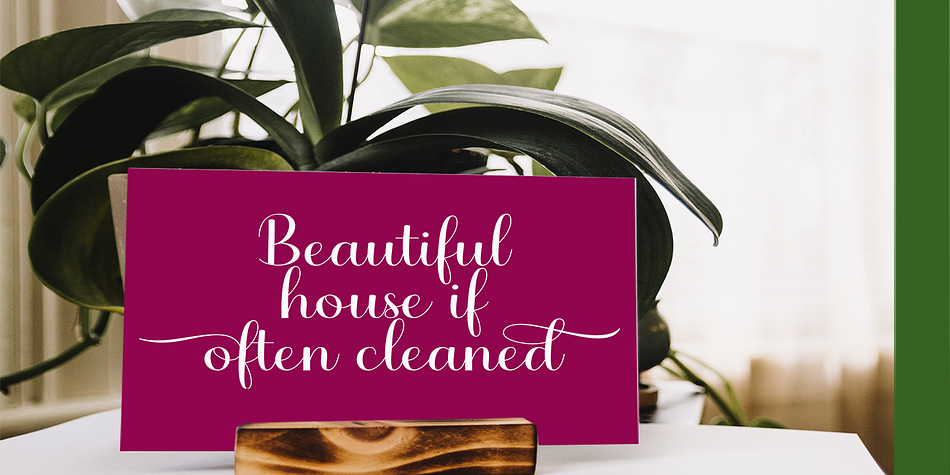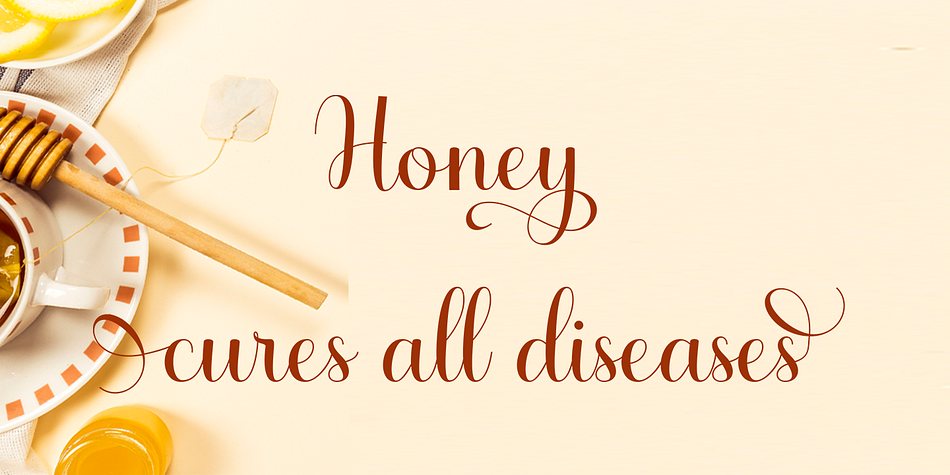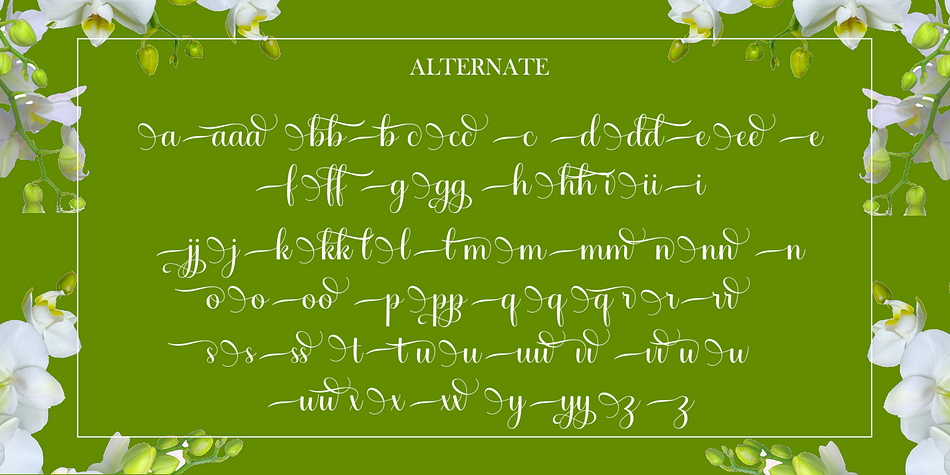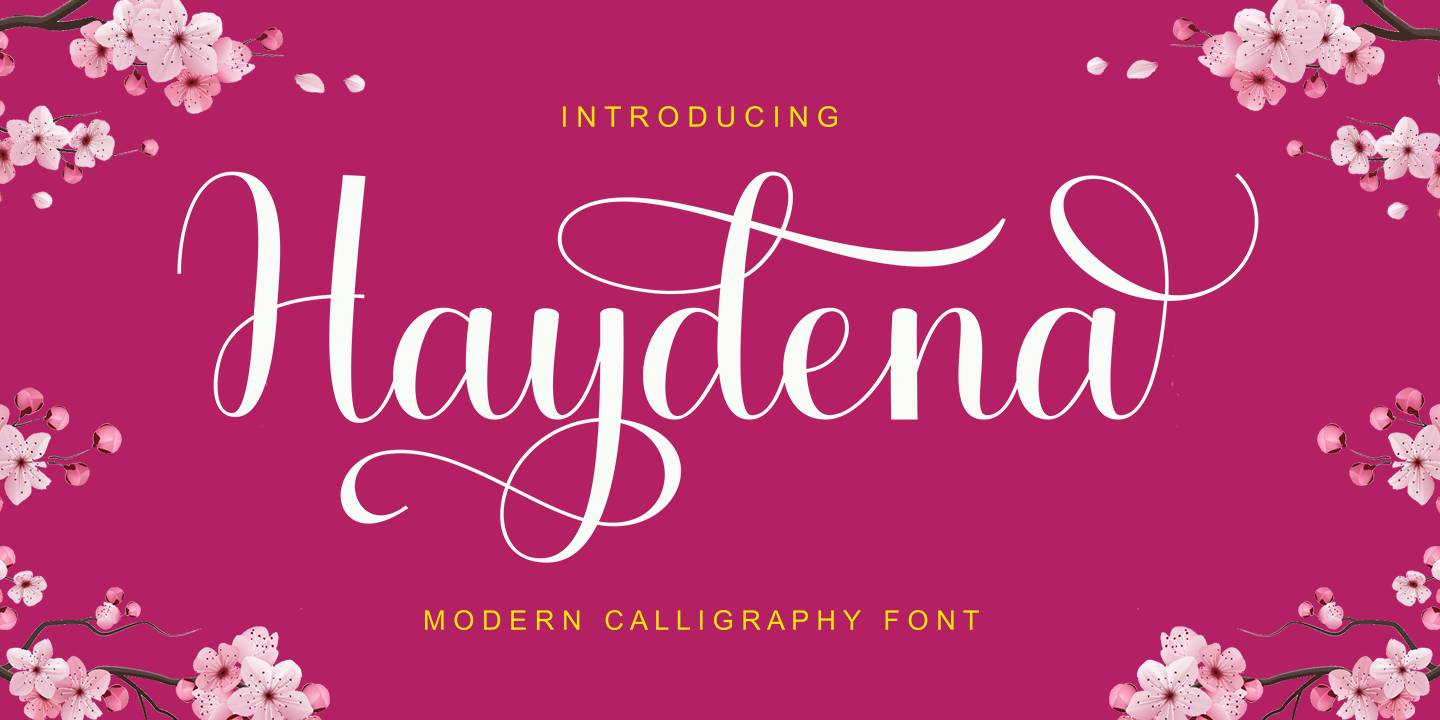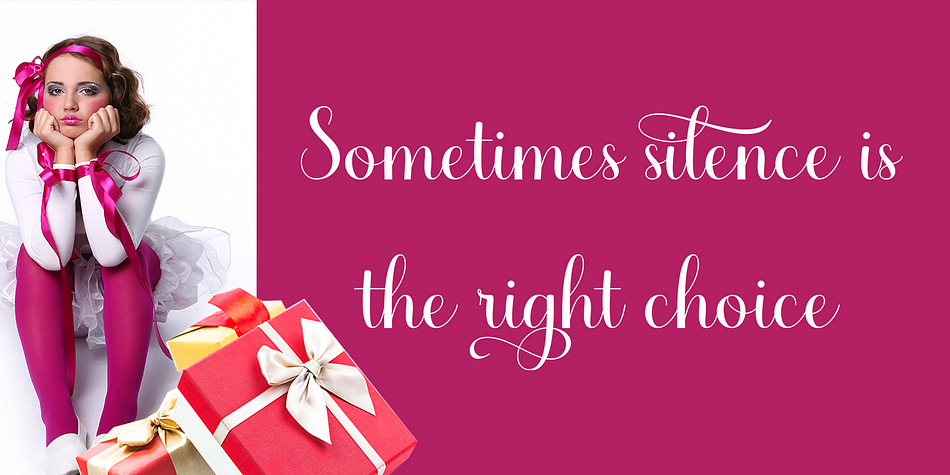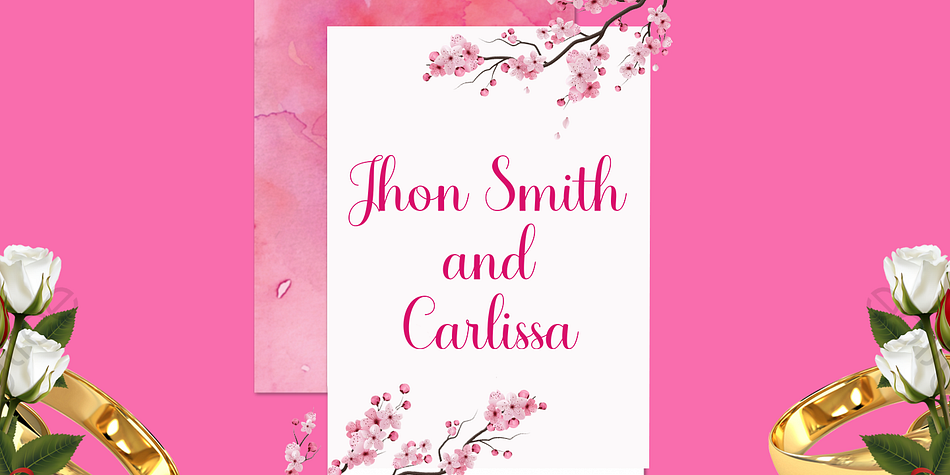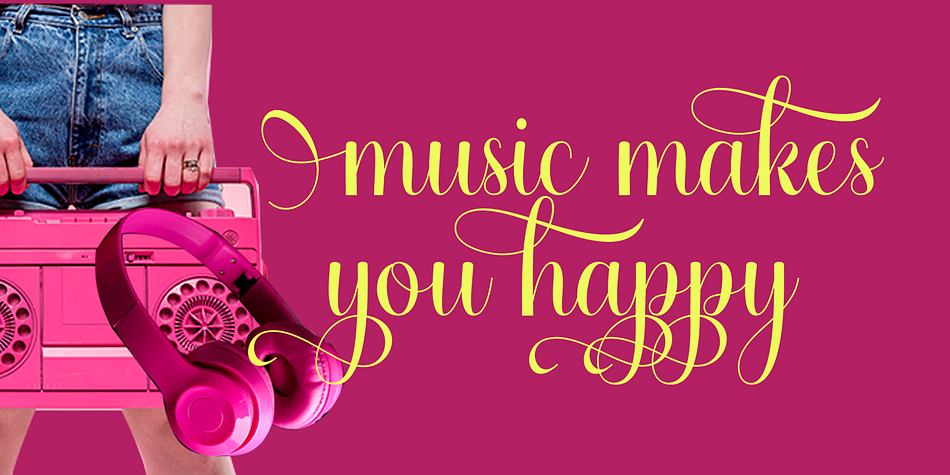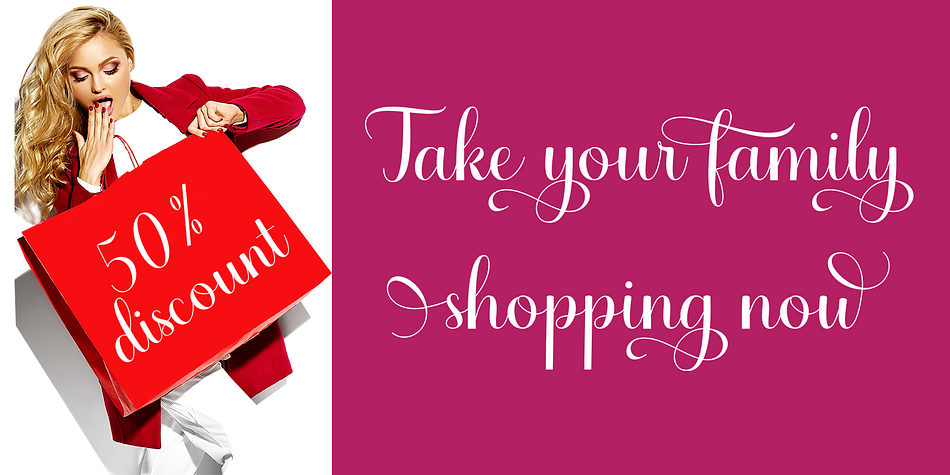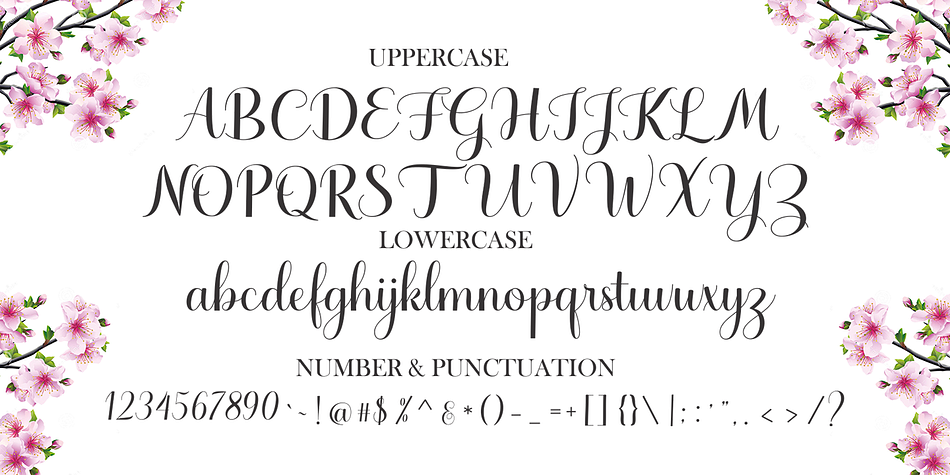
Haydena
Haydena is a modern calligraphy font family published by Gatype.
Haydena Script is a calligraphic manuscript font, modern, dynamic and pretty with swashes. It can be used for many purposes. such as titles, signatures, logos, wedding invitations, letterhead, signages, labels, newsletters, posters, badges, etc.